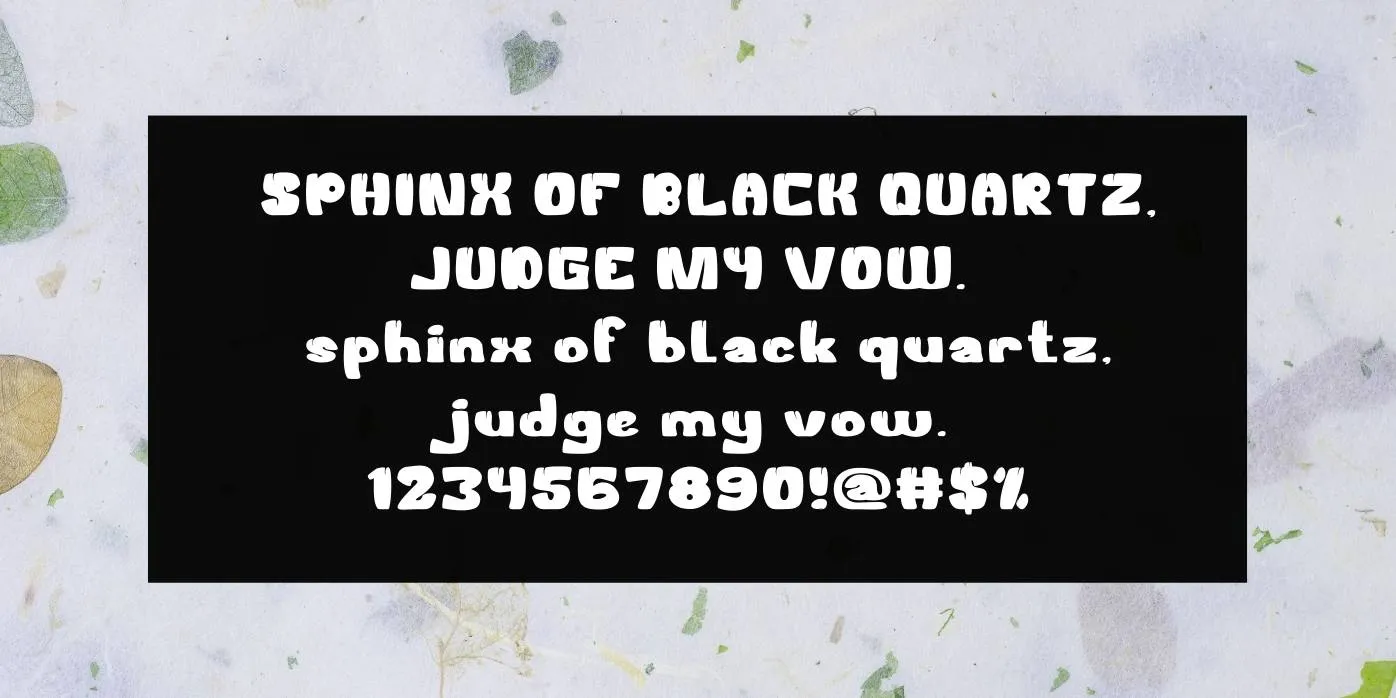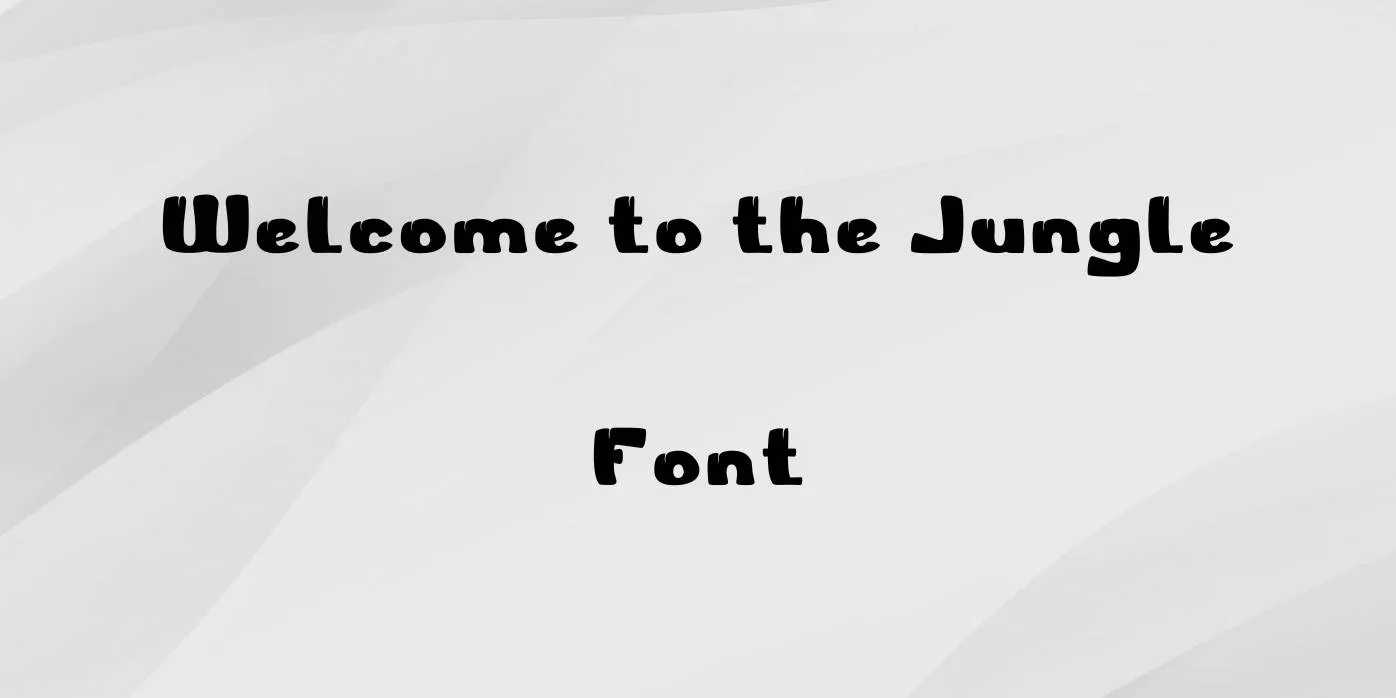
Welcome To The Jungle Font
Welcome To The Jungle Font is a fancy type of font. Weknow designs this fancy type of font. There are 653 amazing glyphs for this texture. This fancy texture has one regular style.